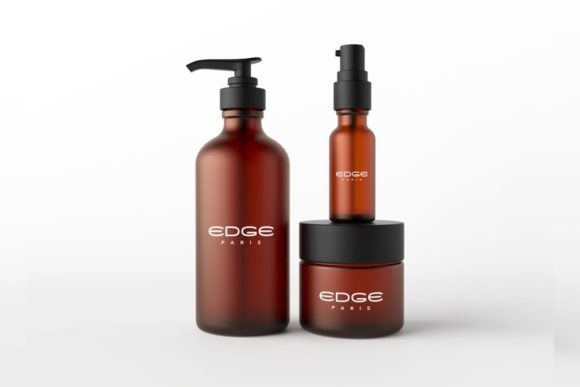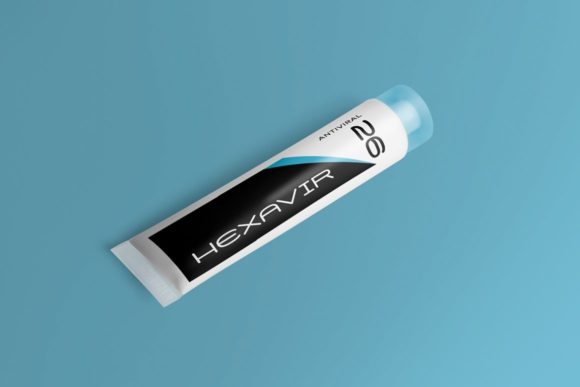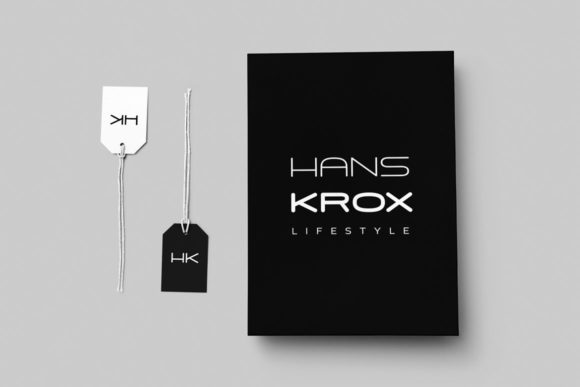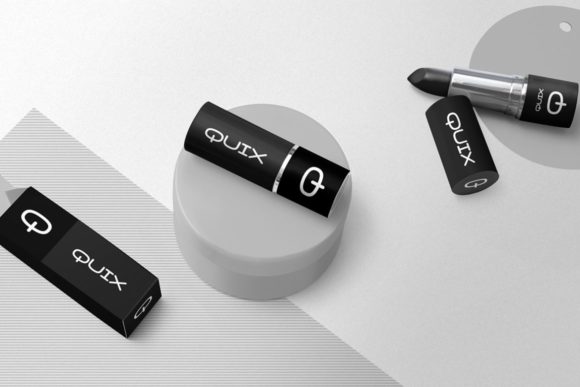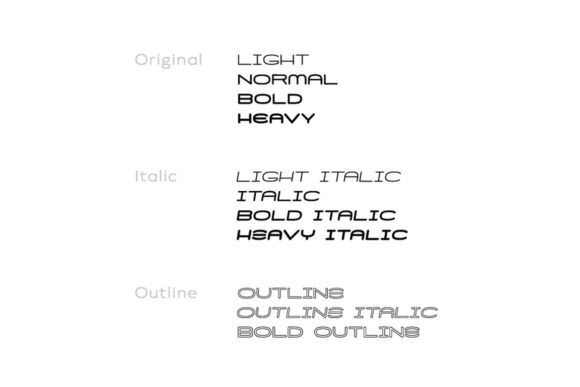
Introduction to Skywave Font
Have you ever stared at a blank canvas, unsure of where to start your next creative project? The blank page can be daunting, but what if you had the perfect tool to spark your imagination? That’s where the Skywave Font comes in – a high-quality, display font that’s sure to elevate any design.
With its unique techno feel and transparent background, this font is a design resource like no other. Whether you’re working on a futuristic concept or a playful poster, Skywave Font is the perfect addition to your toolkit. And the best part? It’s available for free download, making it an incredibly valuable asset for designers of all levels.
Whether you’re a seasoned pro or just starting out, Skywave Font is sure to bring a touch of creativity and fun to your next project. So why wait? Dive in and discover the possibilities of this amazing font for yourself.
Key Features of Skywave Font
- High-quality vector design for crisp and clear display, ideal for creative projects and design resources.
- Transparent background, allowing for seamless integration with various backgrounds and design elements.
- Includes a range of glyphs and characters, making it suitable for various languages and creative applications.
- Designed for use in digital and print media, including websites, social media, posters, and more.
Honest Review: Skywave Font
As a designer, I’m always on the lookout for high-quality design resources to elevate my creative projects. Recently, I had the chance to try out the Skywave Font, and I’m excited to share my thoughts on this free download.
- ✨ The Skywave Font has a unique and modern aesthetic that’s perfect for futuristic or sci-fi themed projects.
- ✨ The font is highly customizable, with a wide range of styles and sizes to choose from.
- ✨ The transparent background makes it easy to use as a overlay or text layer in graphic design software.
- ⚠️ The font may not be suitable for all types of projects, especially those requiring a more classic or traditional look.
- ⚠️ Some users may find the font’s futuristic feel a bit overwhelming or overused.
Overall, I’m impressed with the Skywave Font’s high quality and versatility. It’s a great addition to any designer’s toolkit, and I’d definitely recommend it for creative projects that require a bold and modern look.
With its transparent background and high-quality design, the Skywave Font is perfect for use in a variety of creative projects, including graphics, logos, and typography-based designs. Here are a few tips for getting the most out of the Skywave Font:
- Graphics and illustrations
- Infographics and data visualizations